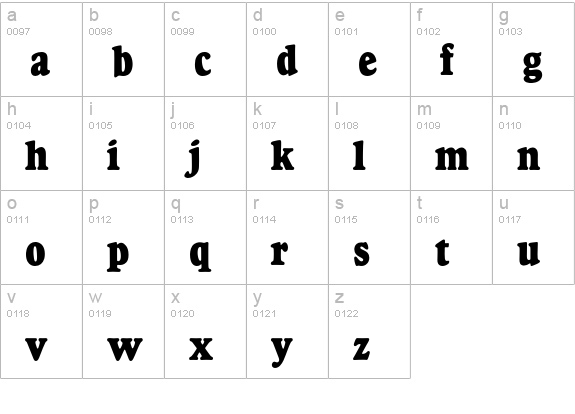
Goudy Heavy Face Condensed is a heavy, high-impact, condensed-width variant in the Goudy typeface family \xE2\x80\x94 well suited to high-impact headlines, posters, and display advertising.
Goudy Heavy Face Condensed font is a timeless and versatile typeface that exudes boldness and sophistication. Its condensed design makes it perfect for creating impactful headlines, titles, and signage that demand attention. With its sturdy and commanding appearance, Goudy Heavy Face Condensed font is sure to make a statement in any design project. And the best part? This exceptional font is available for free download at FontsMarket.com. Whether you're working on a print project, digital design, or branding materials, Goudy Heavy Face Condensed font is a reliable choice that will elevate your work with its unique charm and strong presence. Download it today and add a touch of elegance and authority to your designs!